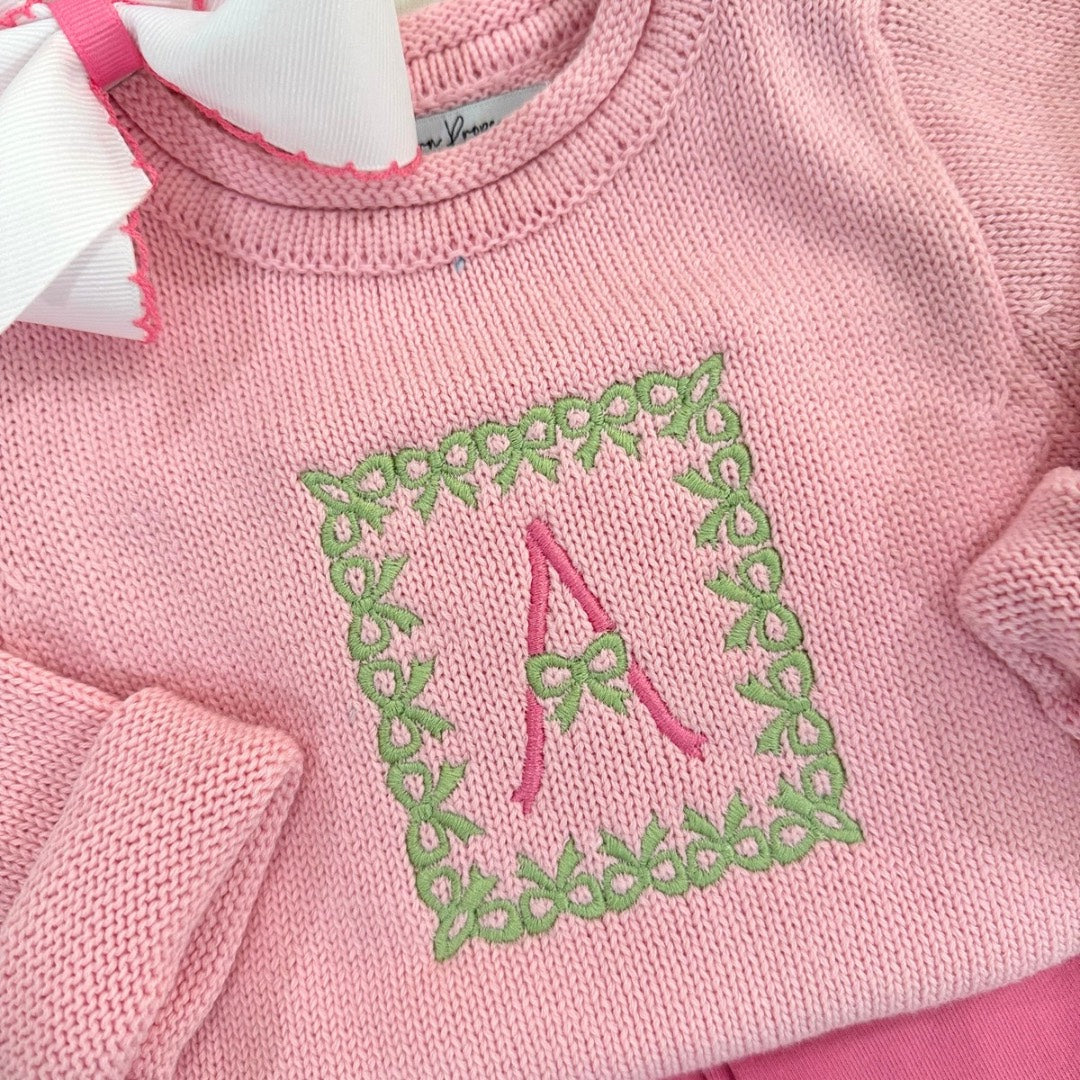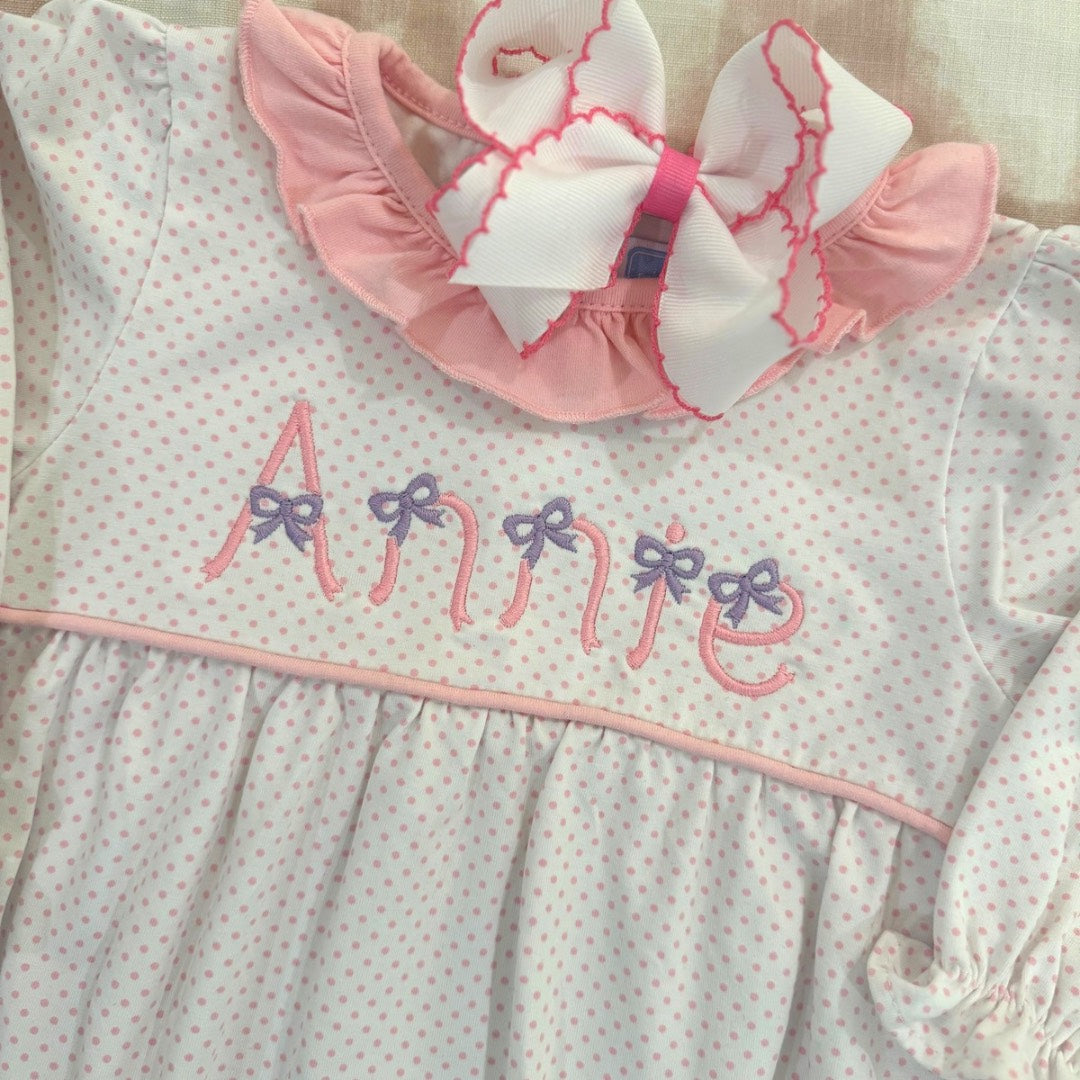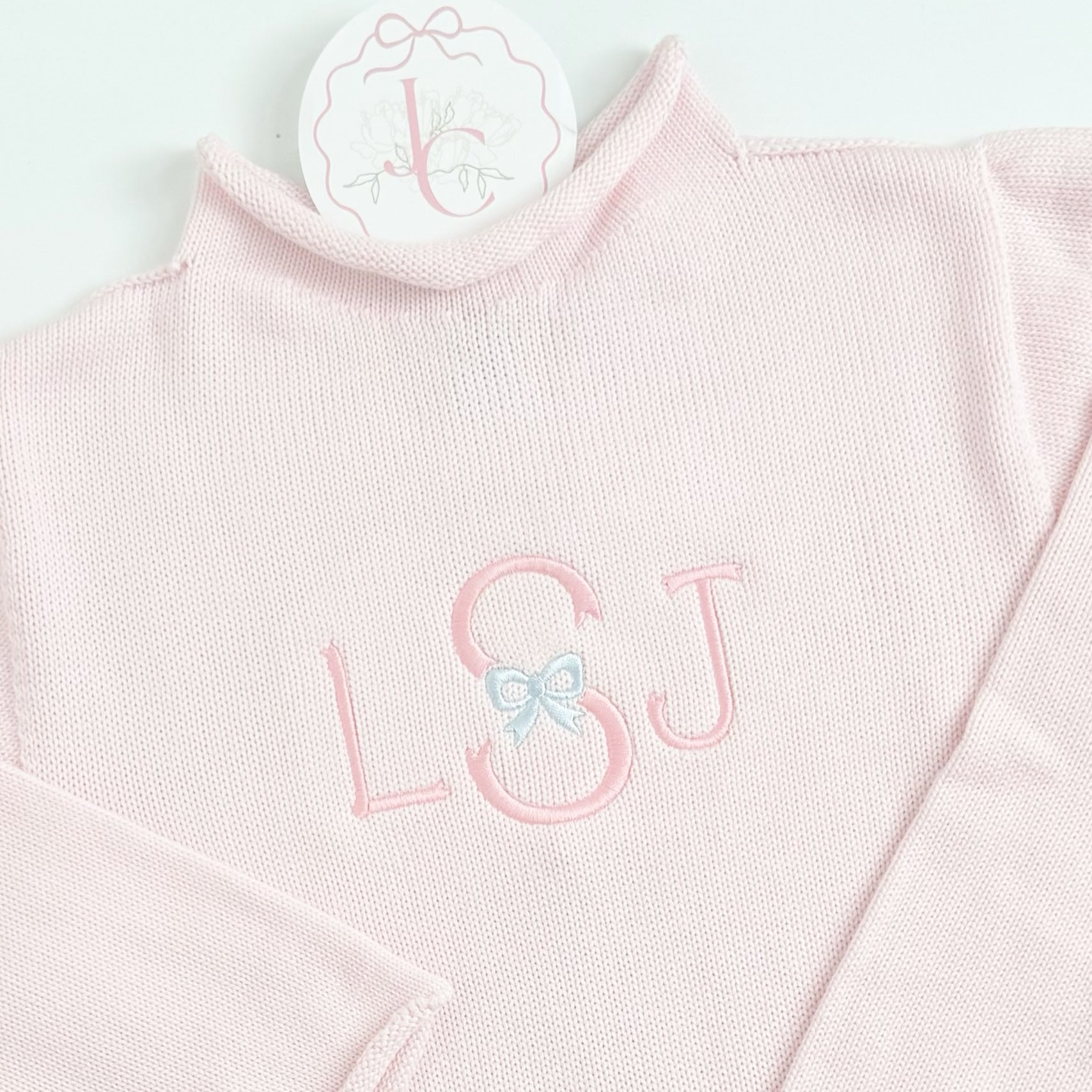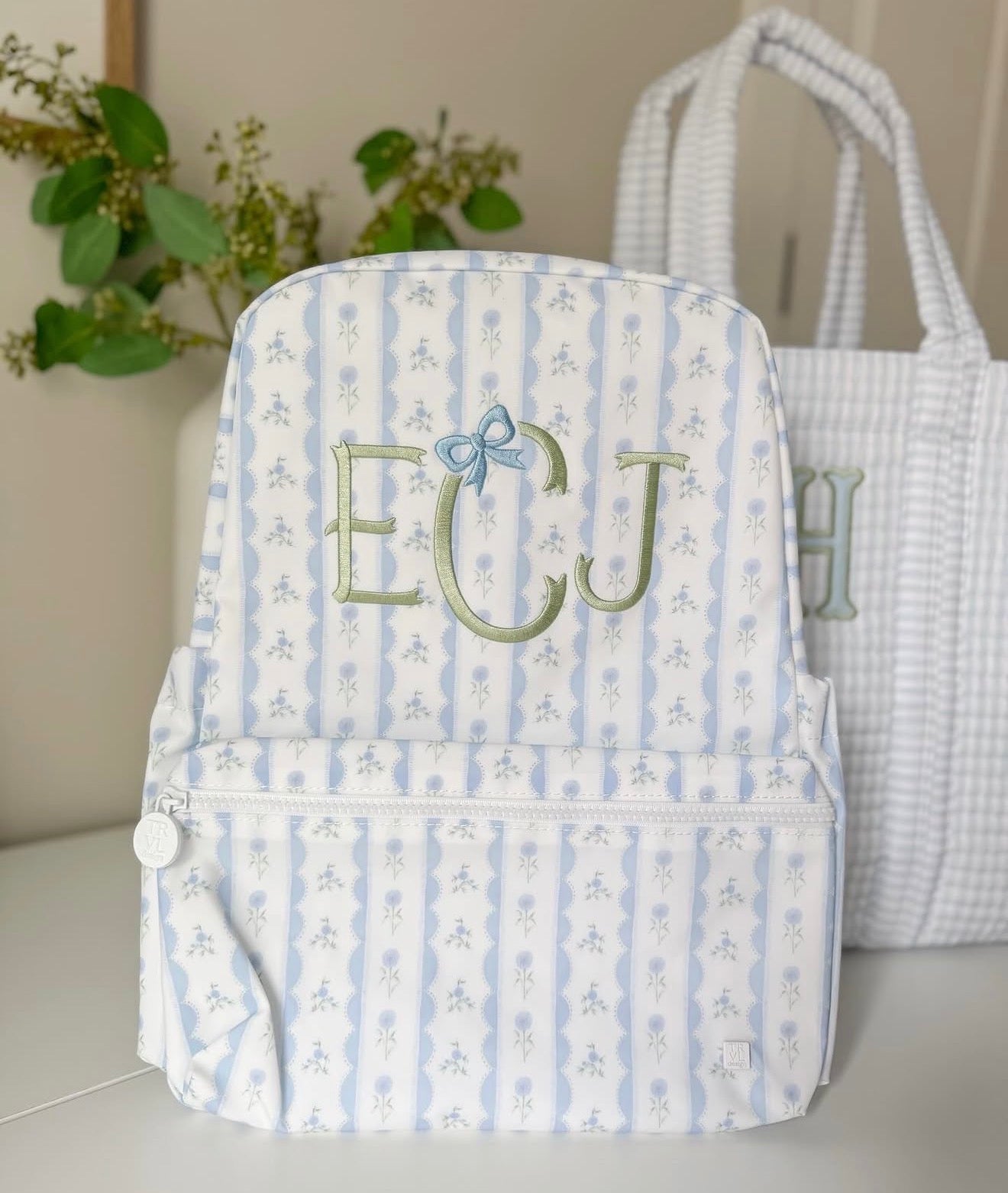
Single Ribbon Font Set for Embroidery
Our Single Ribbon Font Set has two fonts in one package! Single Ribbon Font features graceful ribbon letters, while Single Ribbon With Bow Font adds charming bows to each ribbon letter.
This amazing set includes 26 uppercase letters for each package (52 total), 26 lowercase letters for each package (52 total), numbers 0-9 for each package (20 total), and 3 additional bonus designs.
Perfect for embroidery, the careful attention in the digitization of each design makes personalization unique and beautiful!